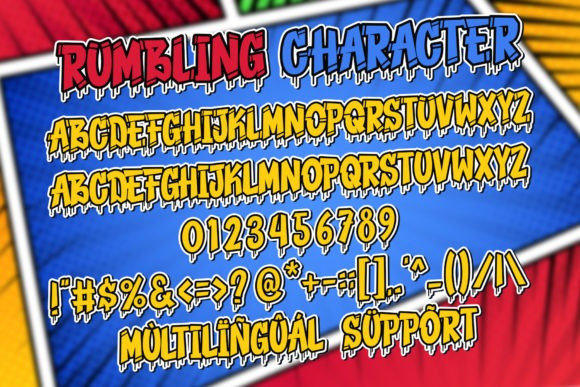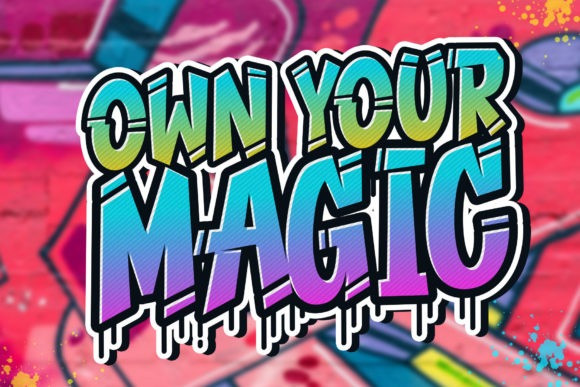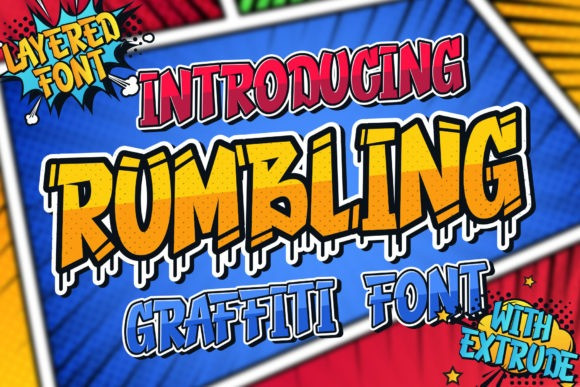
Rumbling Font
Rumbling Font is a bold and chunky lettered display font that playfully evokes the iconic look and style of graffiti. Add this font to your urban and casual creations and you will love the outcome.